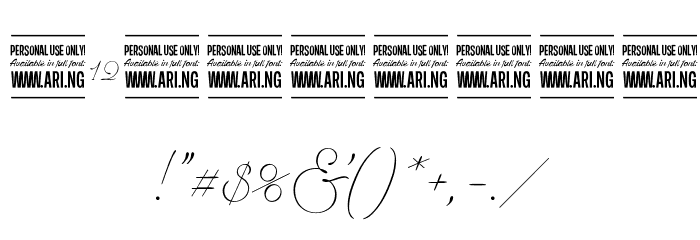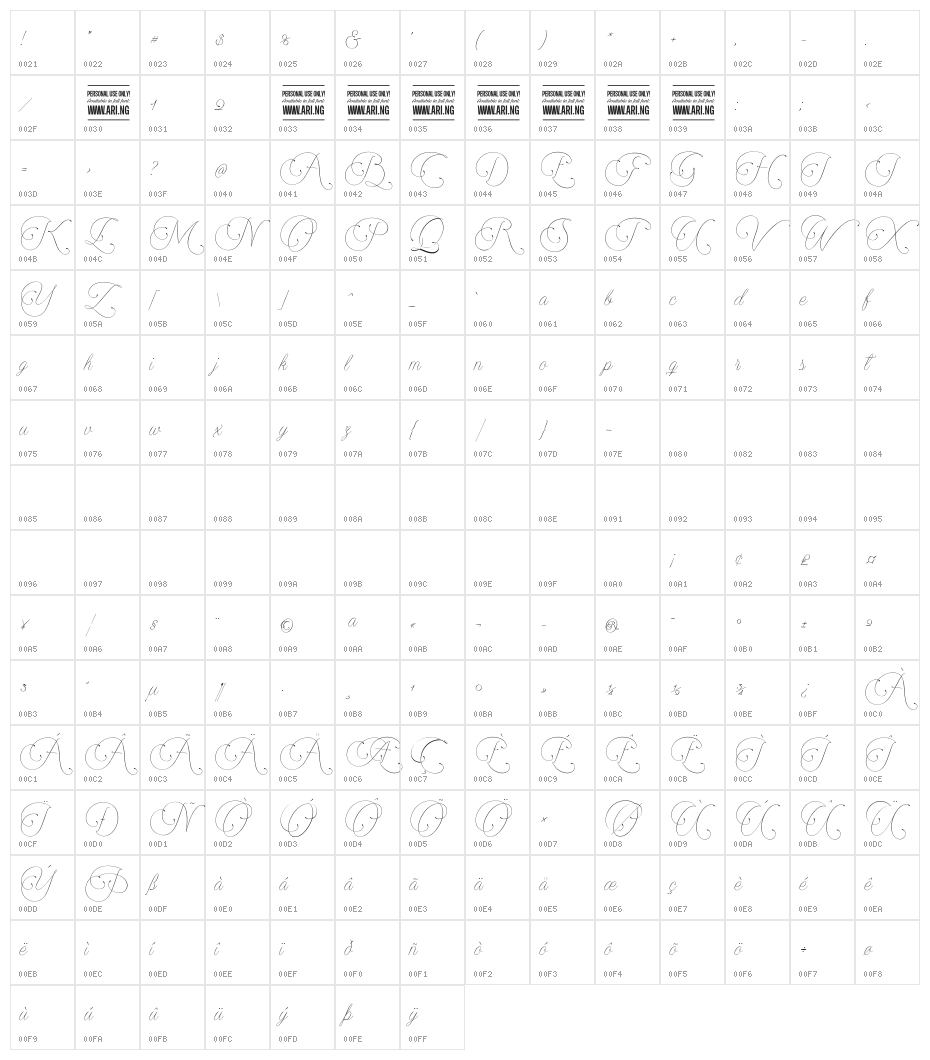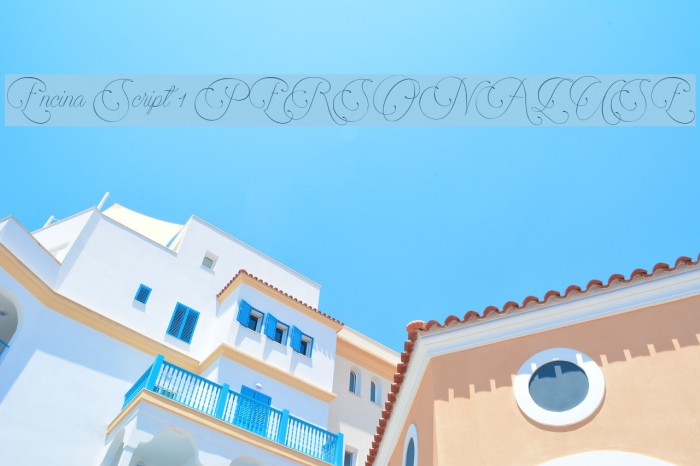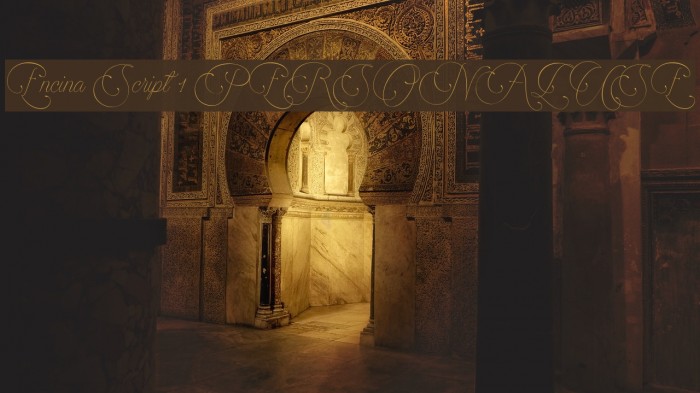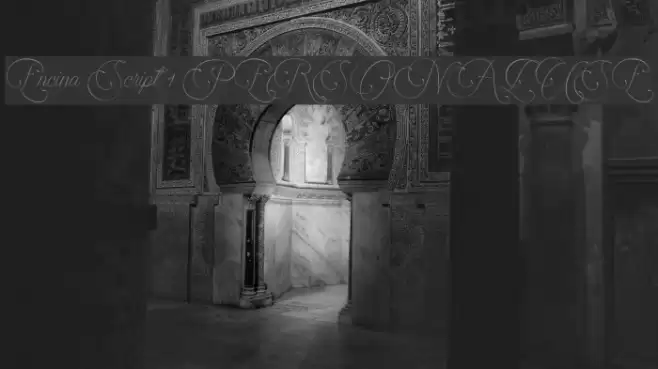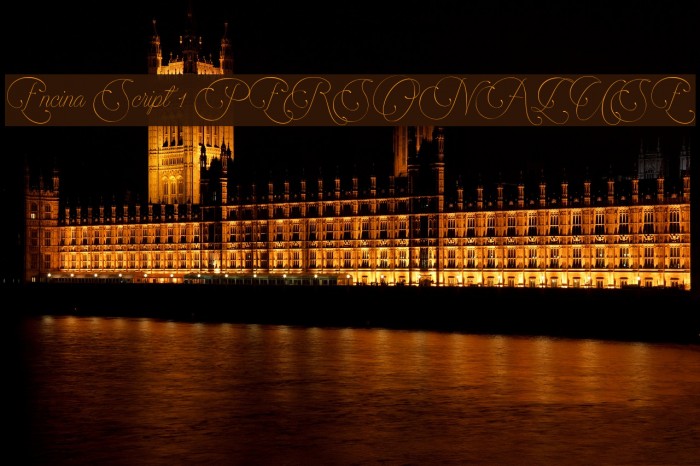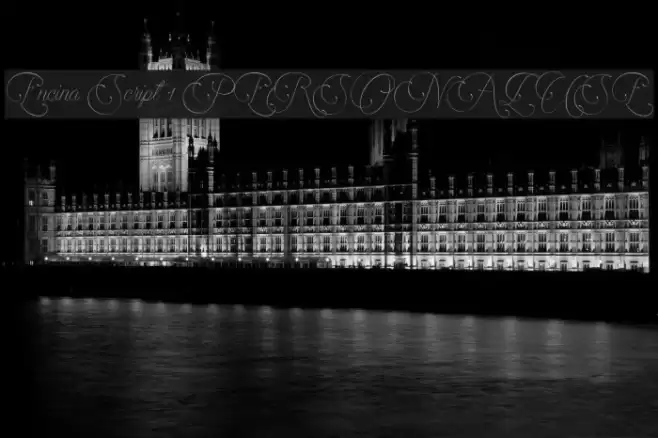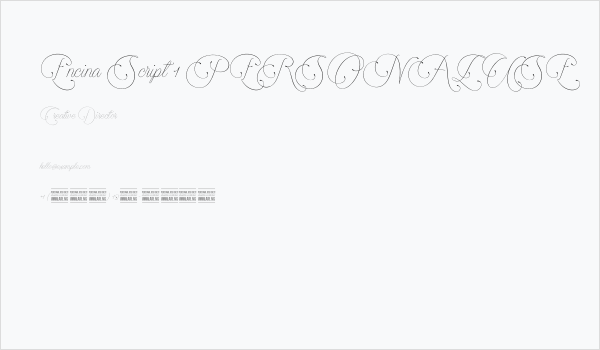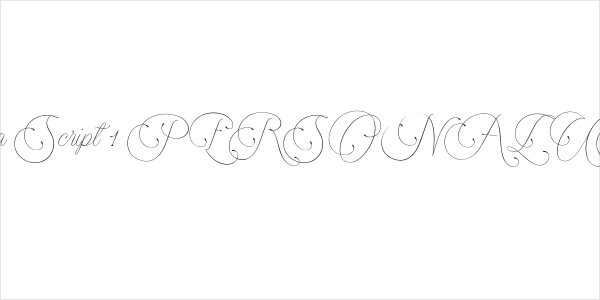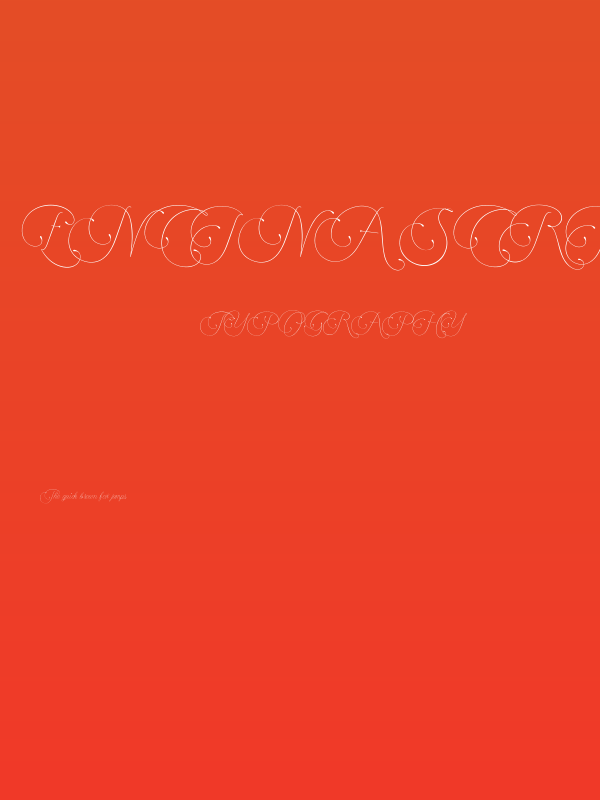
Encina Script 1 PERSONAL USE Font
Encina Script 1 PERSONAL USE Description
This elegant script font features a flowing, cursive style with intricate loops and swashes, giving it a sophisticated and ornate appearance. The characters are delicately crafted with thin strokes, providing a sense of grace and fluidity. The uppercase letters are particularly elaborate, with decorative flourishes that enhance their visual appeal. The lowercase letters maintain a consistent style, complementing the uppercase with their smooth, connected forms. This font includes a full set of numerals and a variety of special characters, making it versatile for various design needs.
| Proposed Projects | Ideal for wedding invitations, elegant branding, greeting cards, and any project requiring a touch of sophistication. |